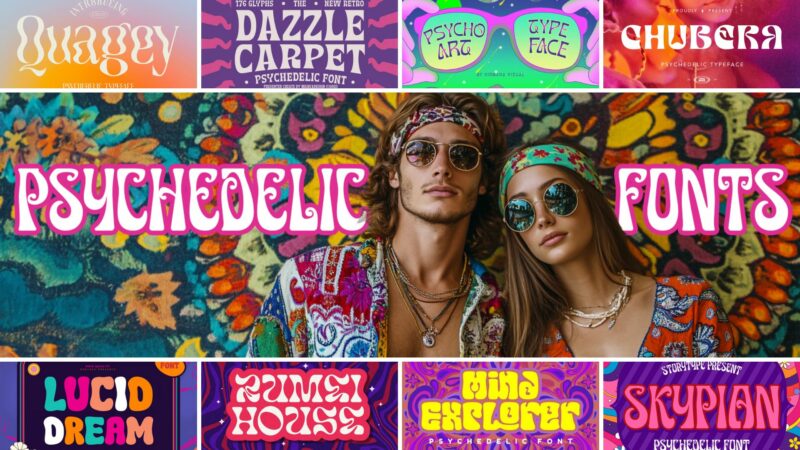
The psychedelic design movement of the 1960s and 70s brought us some of the most mind-bending typography ever created. And in 2026, these groovy, fluid fonts are making a major comeback in everything from festival posters to NFT art.
Psychedelic fonts are characterized by their warped, melting letterforms that seem to flow and morph before your eyes. Often featuring bold colors, extreme distortions, and optical illusions, these fonts capture the experimental spirit of the hippie era while feeling surprisingly fresh and relevant today.
What Makes a Font “Psychedelic”?
Psychedelic fonts get their distinctive look from several key characteristics that work together to create that signature hallucinatory effect:
Fluid, Organic Forms
The most notable feature is the way letters seem to melt, bubble, and flow like liquid. Straight lines become waves, serifs transform into tendrils, and the overall effect suggests constant motion.
Extreme Distortions
Traditional letter proportions are thrown out the window in favor of dramatic stretching, squishing, and warping. Letters might balloon outward, telescope inward, or twist into impossible shapes.
Optical Illusions
Many psychedelic fonts incorporate Op Art effects like concentric circles, radiating lines, and high-contrast patterns that create the illusion of movement and dimensionality.
Hand-Drawn Elements
Despite their wild appearance, most psychedelic fonts have an organic, hand-crafted quality. Irregular curves and inconsistent shapes add to their expressive nature.
57 Far Out Psychedelic Fonts for 2025
Skypian Psychedelic Font
Skypian is a vibrant, flowing script font that captures the essence of psychedelic art. Its swirling letterforms and organic shapes make it perfect for creating eye-catching branding and designs with a retro, 1960s-inspired vibe.
Mind Explorer – Psychedelic Font
Mind Explorer is a bold, decorative font that embodies the spirit of psychedelic exploration. Its intricate, maze-like letterforms create a mesmerizing visual effect, ideal for display purposes and designs that aim to evoke a sense of altered perception.
Rumei House – Psychedelic Display Font
Rumei House combines psychedelic aesthetics with a touch of Western-style typography. Its marker-like strokes and playful curves create a unique, attention-grabbing display font that’s perfect for posters, album covers, and other bold graphic designs.
LUCID DREAM – psychedelic fun font
LUCID DREAM is a sans-serif font with a psychedelic twist. Its retro-inspired design features wavy, distorted letterforms that evoke a dreamlike quality. This fun font is excellent for music-related projects and designs aiming for a trippy, nostalgic feel.
Chubera – Modern Psychedelic Typeface
Chubera offers a modern take on psychedelic typography. This sans-serif typeface features bold, rounded shapes with subtle distortions, creating a contemporary display font that balances readability with a touch of trippy aesthetics.
Psychoart Typeface – psychedelic font
Psychoart is a serif typeface that captures the essence of 90s retro psychedelia. Its warped and melting letterforms create a striking visual impact, perfect for designs that aim to evoke nostalgia or a sense of altered reality.
Dazzle Carpet – A Modern Psychedelic Font
Dazzle Carpet is a modern serif font with a psychedelic twist. Its unique, wavy letterforms create an optical illusion effect, making it an excellent choice for designs that aim to captivate and mesmerize the viewer.
Quagey – Psychedelic Typeface
Quagey is a quirky, decorative serif font that embraces psychedelic aesthetics. Its playful, undulating letterforms and unexpected curves make it perfect for creating attention-grabbing headlines and unique brand identities.
TF Funky Fusion
TF Funky Fusion is a groovy, decorative font that blends vintage and psychedelic elements. Its bold, curvaceous letterforms and retro vibe make it ideal for creating eye-catching designs with a funky, 70s-inspired feel.
Typochelic
Typochelic is a bold, sans-serif font with a psychedelic twist. Its sturdy letterforms feature subtle distortions and curves, creating a typeface that’s both readable and visually intriguing, perfect for modern designs with a trippy edge.
Typotrance
Typotrance is a condensed sans-serif font with psychedelic influences. Its narrow, elongated letterforms with subtle warping effects create a hypnotic visual rhythm, making it ideal for designs that aim to capture a sense of movement or altered states.
Hippie Mods | Groovy Font
The psychedelic font trend shows no signs of slowing in 2025. Whether you’re designing for music, art, fashion or beyond, these far-out fonts offer endless creative possibilities. Just remember to use them thoughtfully and intentionally.